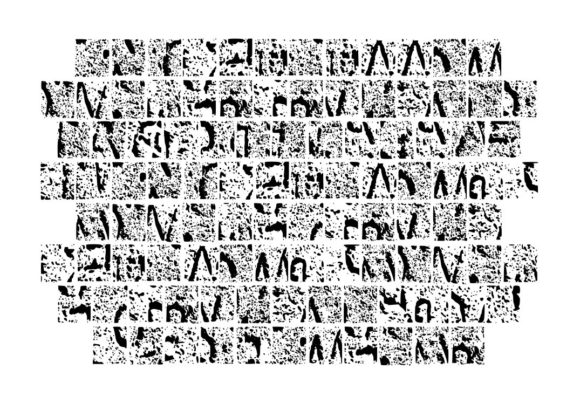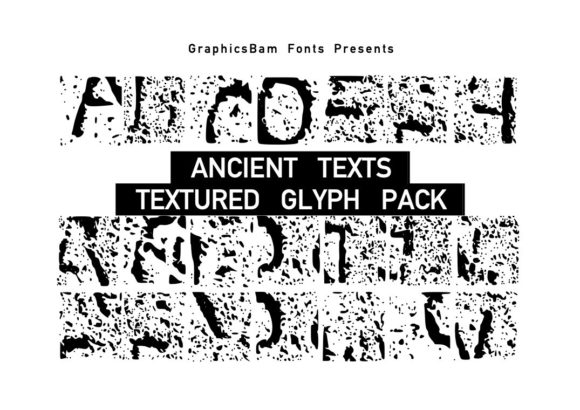
Ancient Texts Glyphs Font
ABOUT ANCIENT TEXTS GLYPHS FONT
“Ancient Texts Glyphs” is an expansive collection of glyphs that showcases a variety of text designs carved into ancient wall textures. This pack is specifically curated to bring an authentic and historic touch to your design or craft projects, allowing you to capture the essence of ancient civilizations and historical eras.
With its intricate and weathered text designs, “Ancient Texts Glyphs” offers a range of options for incorporating a historic-inspired element into your creative endeavors. Whether you’re working on graphic designs, illustrations, or any other visual medium, these glyphs can add a sense of mystery, depth, and richness to your work.
The text designs in “Ancient Texts Glyphs” draw inspiration from various ancient writing systems and scripts, such as hieroglyphs, cuneiform, runic inscriptions, and more. They can be used to create an aura of authenticity in projects related to history, archaeology, mythology, or any theme that requires a connection to the past.
Unleash your creativity and explore the possibilities with “Ancient Texts Glyphs.” Experiment with different text styles, arrangements, and combinations to achieve the desired look and convey a sense of timelessness and intrigue. Let the ancient texts transport your audience to a bygone era, sparking curiosity and fascination.
Whether you’re designing book covers, museum exhibits, historical presentations, or any craft project that calls for a historic-inspired touch, “Ancient Texts Glyphs” is here to enrich your creative process and elevate your designs. Embrace the wisdom of the past and let it inspire your imagination as you create captivating and immersive compositions.